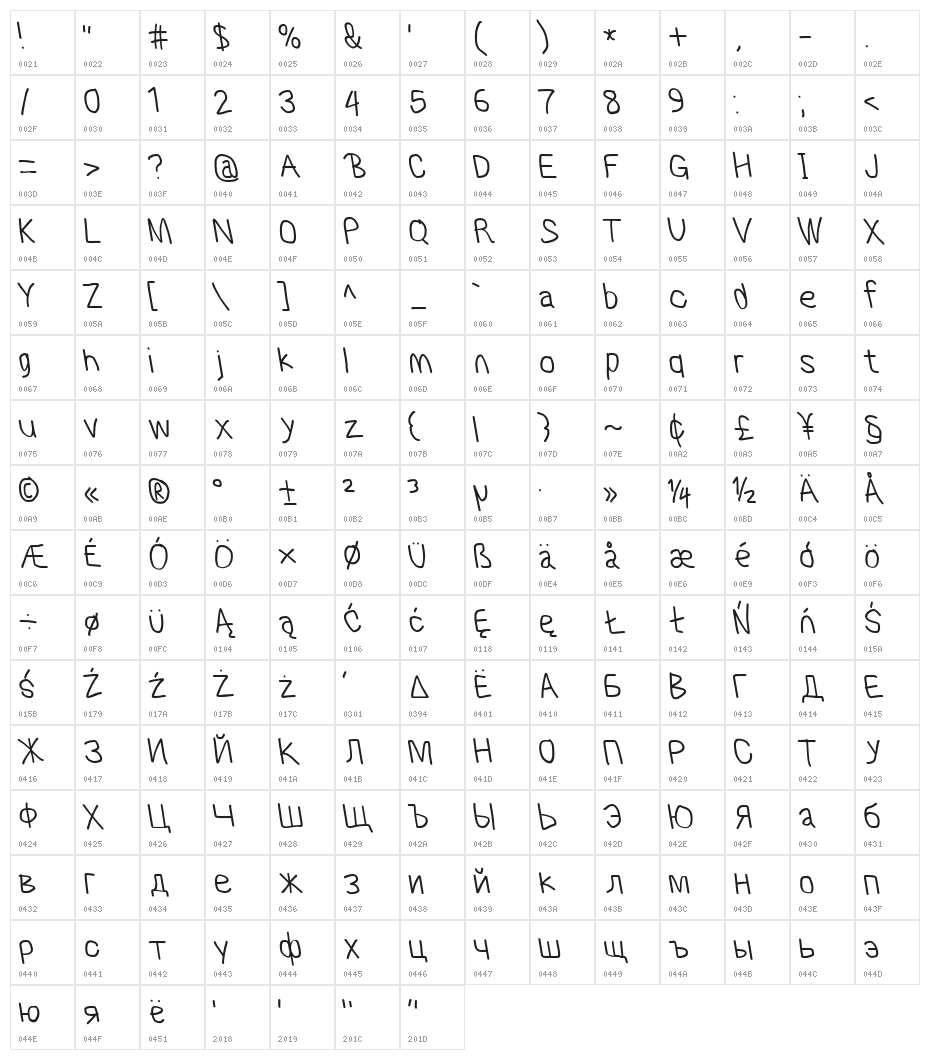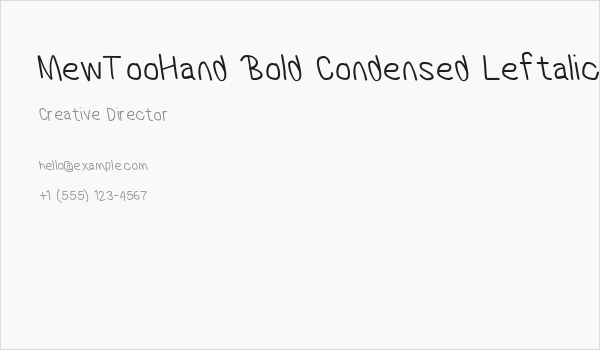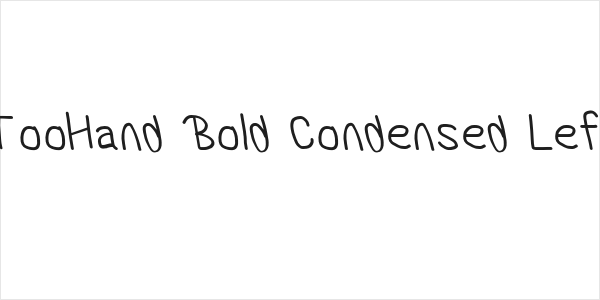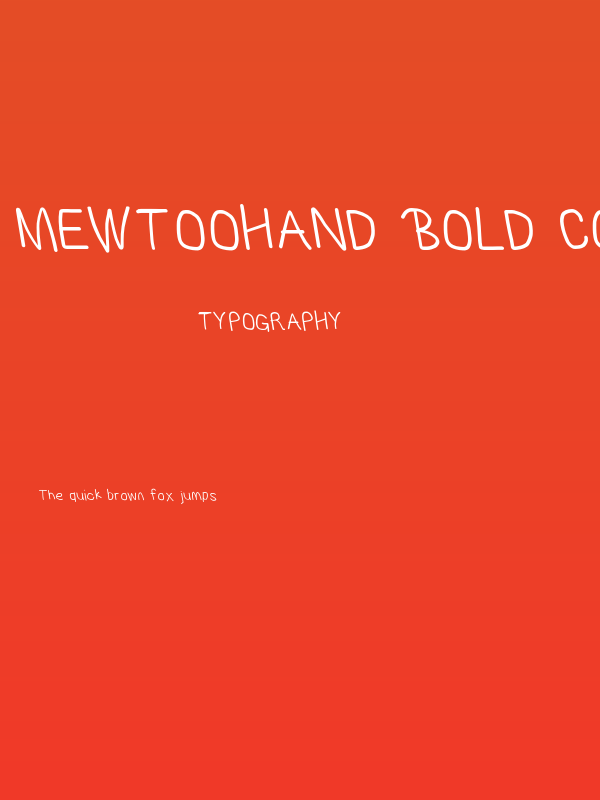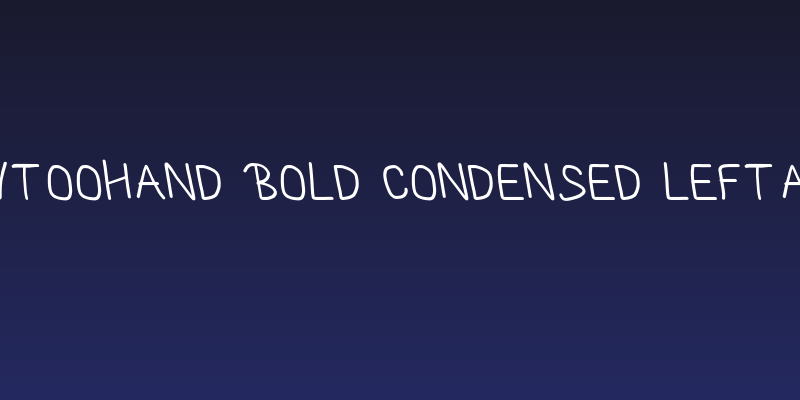
MewTooHand Bold Condensed Leftalic Font
MewTooHand Bold Condensed Leftalic Description
This font features a playful and casual handwritten style, characterized by its bold and condensed letterforms. The strokes are consistent in weight, giving it a uniform appearance, while the slight leftward slant adds a dynamic and informal touch. The characters are rounded with a smooth flow, making it approachable and friendly. The uppercase and lowercase letters maintain a cohesive look, and the numerals are clear and legible. Special characters are well-integrated, enhancing the font's versatility.
| Proposed Projects | Ideal for children's books, casual invitations, playful branding, and social media graphics. |